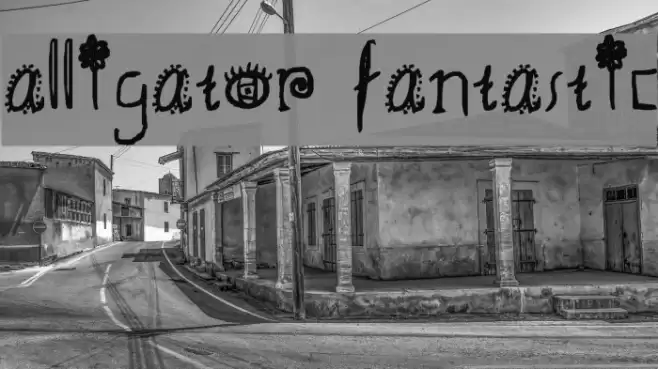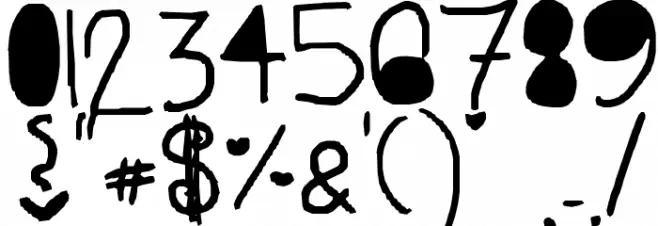
alligator fantastic Font
alligator fantastic Description
This font is a highly creative and eclectic display typeface, featuring a diverse range of styles within each character. The uppercase letters exhibit a playful mix of bold, whimsical, and abstract designs, with some letters incorporating unique patterns and shapes. The lowercase letters continue this theme, offering a quirky and artistic feel. Numbers and special characters are equally varied, with some characters appearing bold and others more delicate. This font is ideal for projects that require a fun, artistic touch, making it perfect for creative branding, posters, and artistic designs.
A playful and eclectic display font with diverse character styles from Uncategorized fonts.